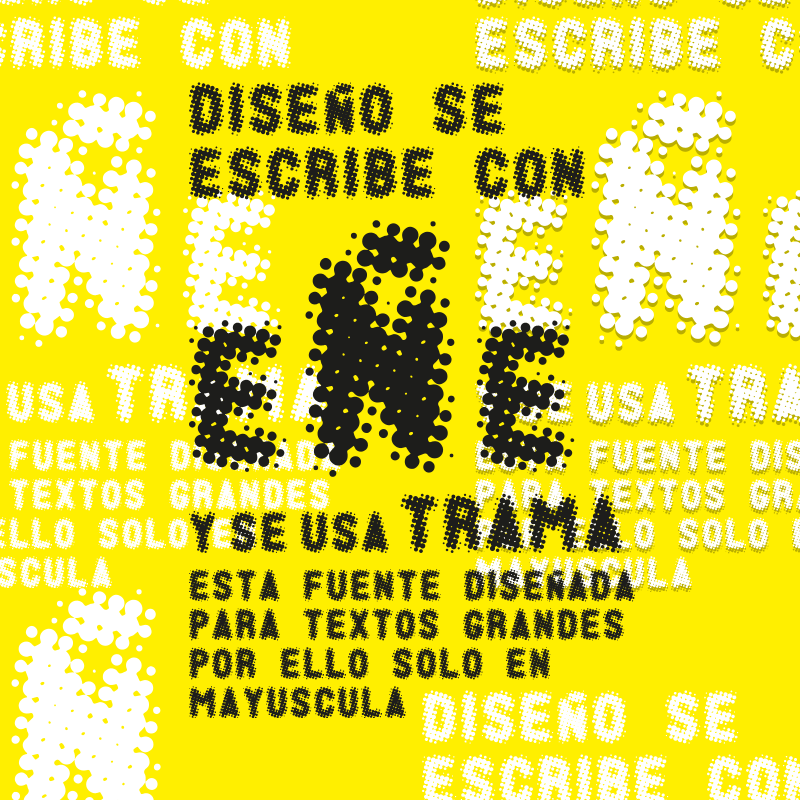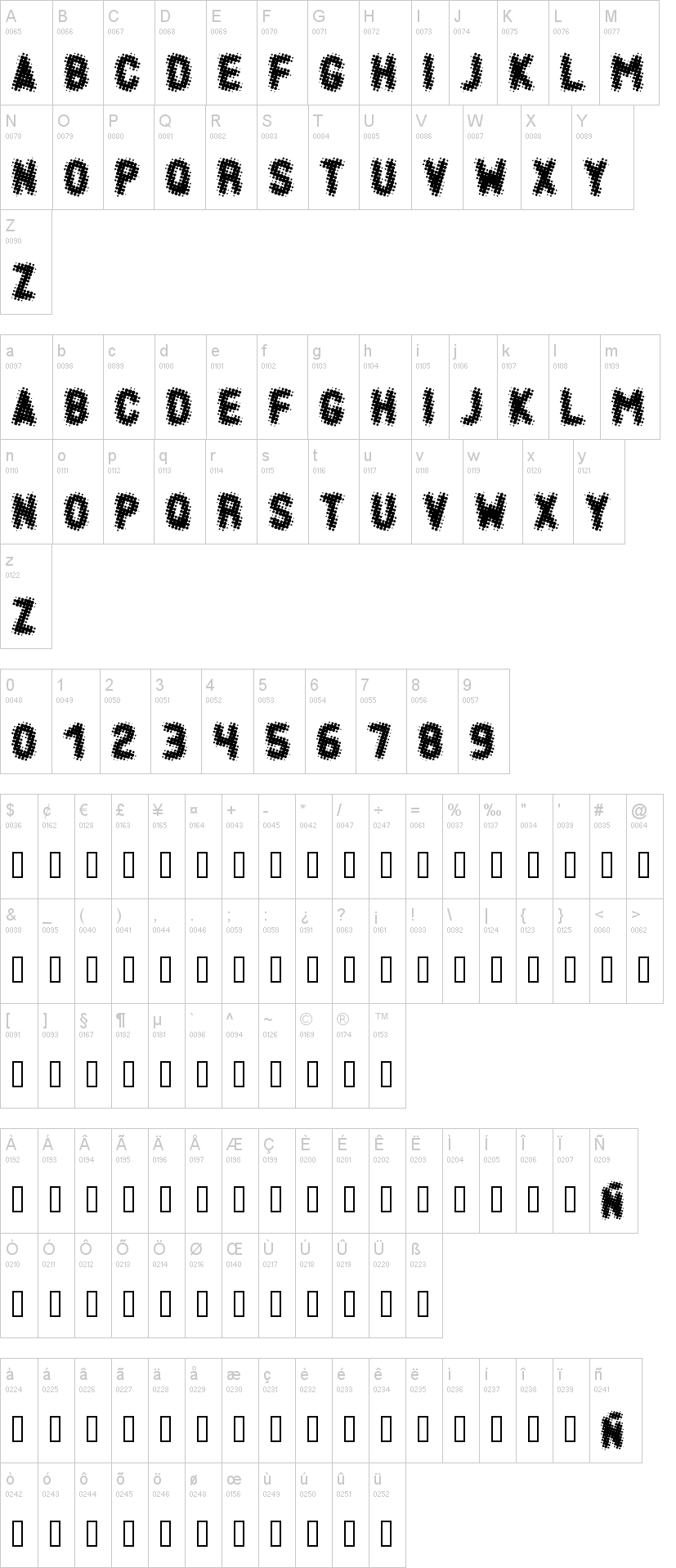
Note of the authorThis font designed for short text uses, plays with visual effects, useful for posters, I hope you like it and can comment
Esta fuente diseñada para usos de textos cortos, juega con efectos visuales,util para carteles, espero les agrade y puedan comentar